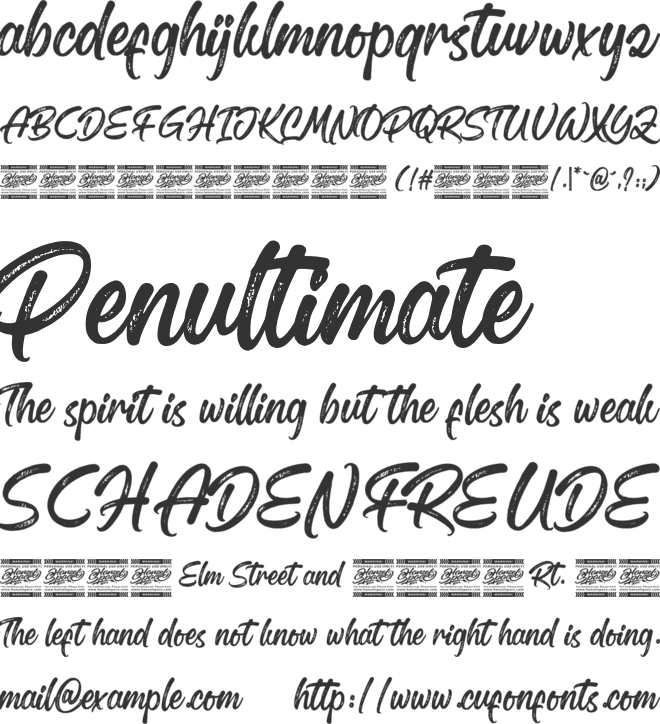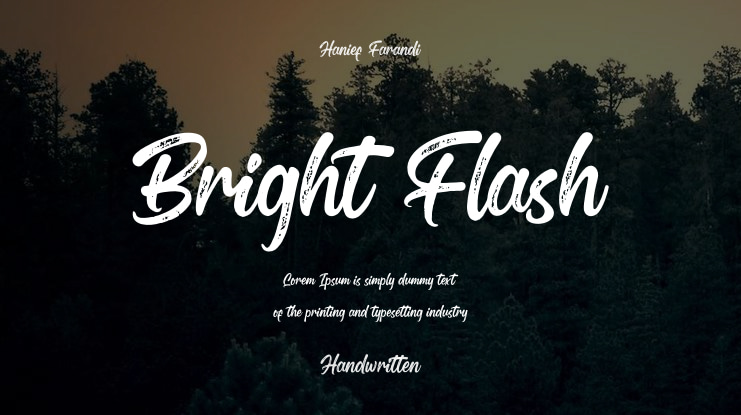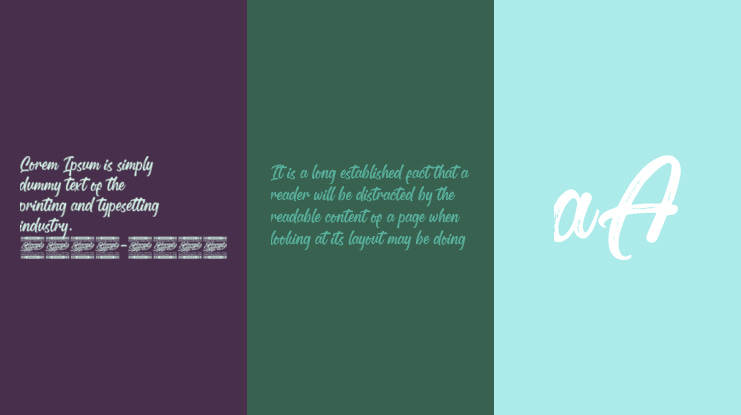
Bright Flash – Calligraphy Script Font
A very cool script based on a textured handwritten script. This type of font is perfectly made to be applied especially in logos, and the other various formal forms such as invitations, labels, logos, magazines, books, greeting / wedding cards, packaging, fashion, make up, stationery, novels, labels or any type of
advertising purpose.
Features:
– Full Set of standard alphabet and punctuation
- Ending swash and Ligatures
– Multilingual Characters (ÁÂÄÀÅÃÆÇÐÉÊËÈÍÎÏÌÑÓÔÖÒØÕÚÛÜÙẂŴẄẀÝŶŸỲ áâäàåãæçðéêëèíîïìñóôöòøõœúûüùẃŵẅẁýŷÿỳ€£¥)